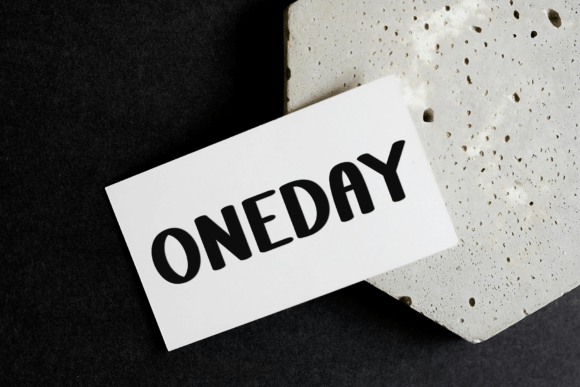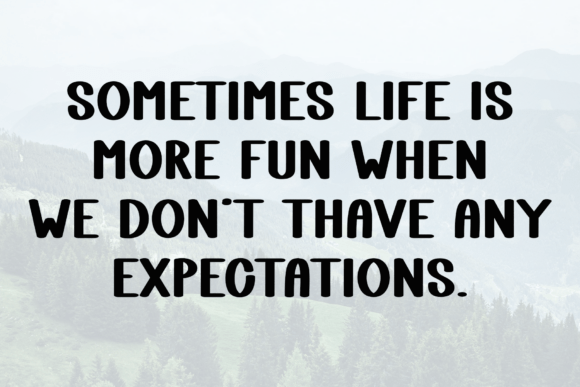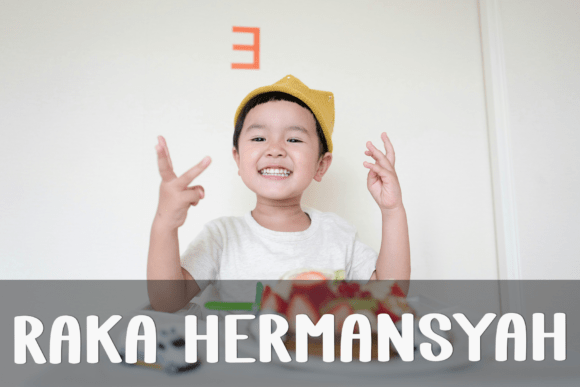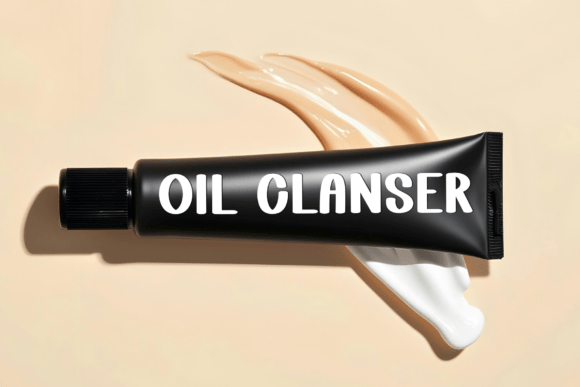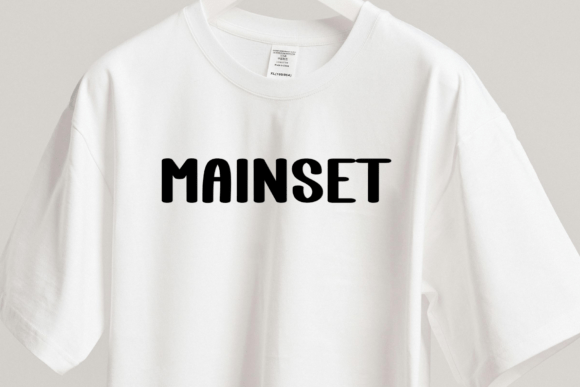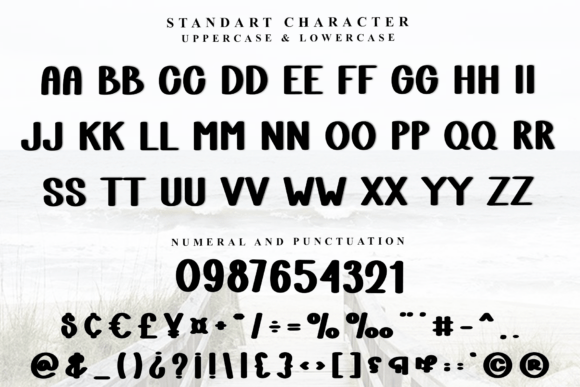
Introduction to Micro Cheating Font
Have you ever found yourself stuck in a creative rut, desperate for the perfect font to bring your project to life? You’ve scrolled through countless options, but nothing seems quite right. It’s moments like these that make us appreciate the beauty of discovering a truly unique font, one that elevates our designs and sets them apart from the rest.
Enter the Micro Cheating Font, a stunning and versatile design resource that’s sure to spark your creativity. With its soft, one-of-a-kind strokes and transparent background, this high-quality font is perfect for a wide range of creative projects, from crafting beautiful typography to adding a touch of elegance to your designs.
Key Features of Micro Cheating Font
- High-quality, scalable font suitable for creative projects, including digital art, graphic design, and typography.
- Transparent background, allowing for seamless integration into various design resources and backgrounds.
- Designed with a unique, stylized aesthetic, setting it apart from standard fonts and adding a creative touch to any project.
- Includes a comprehensive character set, including Latin, Cyrillic, and Greek alphabets, as well as punctuation and special characters.
Honest Review: Micro Cheating Font
I recently stumbled upon the Micro Cheating Font, a unique design resource that has piqued my interest. As a designer, I’m always on the lookout for high-quality fonts that can elevate my creative projects.
Overall, I’m impressed with the Micro Cheating Font. While it may not be perfect, it’s a great design resource that can add a unique touch to your creative projects. With its high-quality design and transparent background, it’s definitely worth checking out.
Tips for Getting the Most Out of the Micro Cheating Font
Experiment with different font sizes and styles to add visual interest to your design. Use the Micro Cheating Font in combination with other design elements to create a cohesive and engaging visual identity.
The Micro Cheating Font is ideal for use in creative projects that require a unique and eye-catching font. Some common use cases include: social media graphics, presentations, documents, and marketing materials.